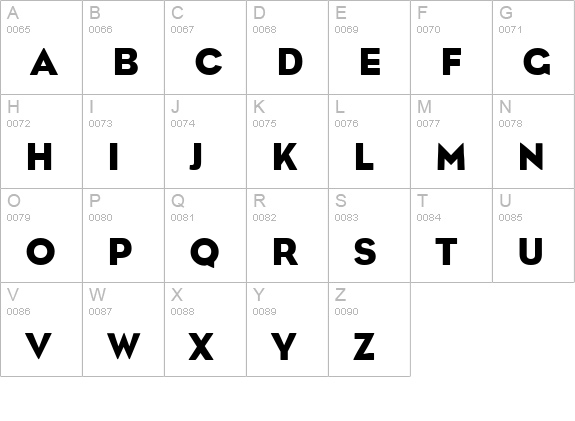
Genesis Font Details
Introducing Genesis font, a sleek and modern typeface that exudes elegance and sophistication. With its clean lines and stylish curves, Genesis is perfect for a wide range of design projects, from branding to editorial work. This versatile font is available in a variety of weights and styles, making it easy to create dynamic and eye-catching designs. Whether you're working on a logo, website, or print materials, Genesis is sure to make a lasting impression. Best of all, Genesis is completely free to download at FontsMarket.com. So why wait? Add this stunning font to your collection today and take your designs to the next level.